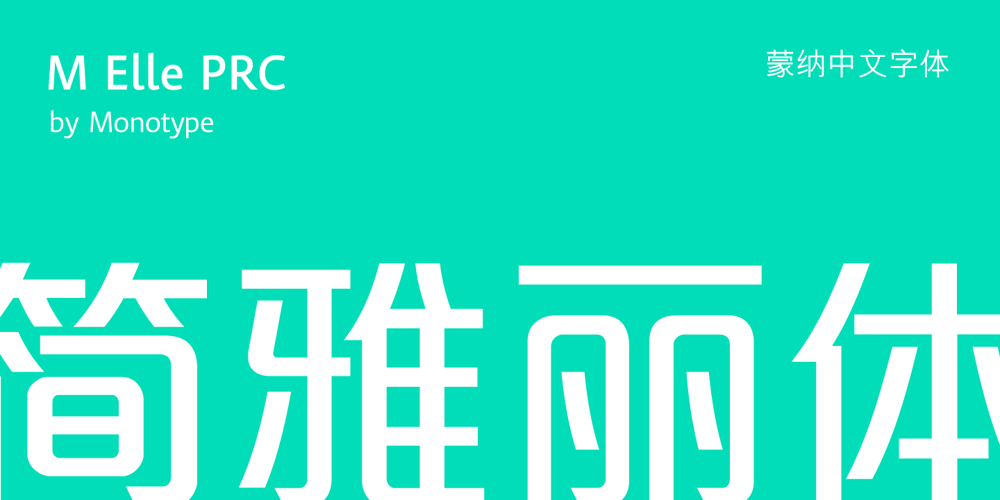
M Elle PRC Font Family was designed by Monotype HK Design and published by Monotype HK. M Elle PRC contains 3 styles and family package options. The concept of M Elle comes from M Hei and M Yuen, with a sense of contemporary graphic design, aims to accomplish a refreshing, harmonious balance of softness and toughness. The combination of regular crossbars (橫) and stems (豎), rounded hooks (勾) and angles (折), as well as dots (點), ticks (剔) and downstrokes (撇、捺) that are ended sharply, makes it a classy but contemporary, clean and affectionate typeface. The font family consists of 3 essential weights to cater for different needs. Xbold appears elegant and magnificent, Medium weight is practical and affectionate, while the Light style is especially clear, legible and flexible in use.